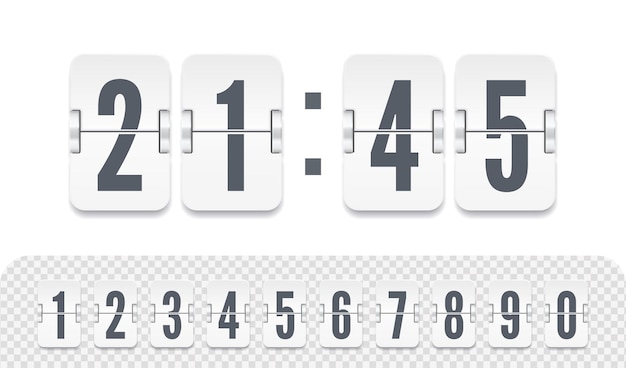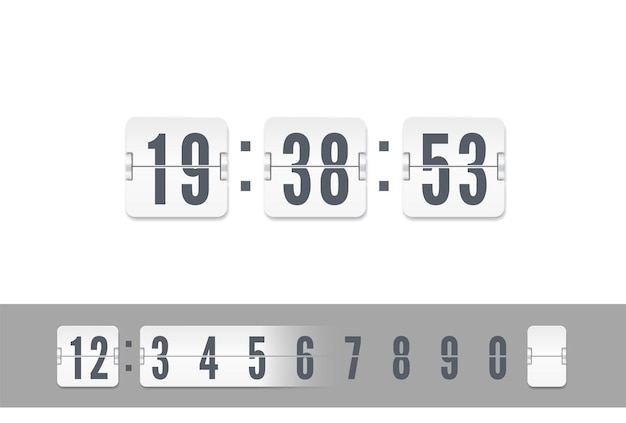
white scoreboard number font vector coming soon web page template with flip time counter vector illustration template
White scoreboard number font vector coming soon web page template with flip time counter vector illustration template